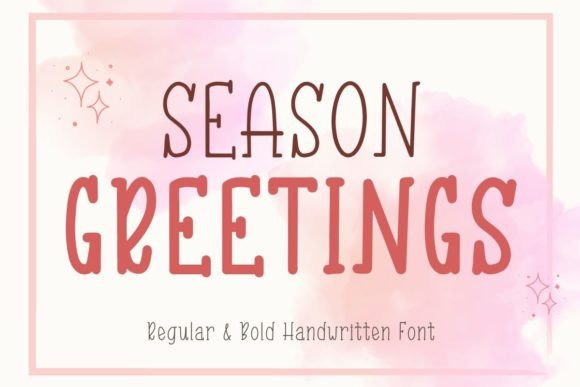
Step into a world of sophistication and elegance with Season Greetings Font, the charming serif font crafted by AnningArts. This exquisite creation is a testament to meticulous artistry, showcasing graceful curves and delightful details that will elevate your designs beyond the ordinary.
Unleash your creativity with this versatile font, perfect for crafting captivating business proposals that demand attention. Its clean lines and subtle flourishes add a touch of refinement to your documents, ensuring your ideas shine brighter than ever before.
With Season Greetings Font, you'll discover a myriad of opportunities to make a lasting impression. Picture your wedding invitations adorned with this elegant script, promising a day filled with love and joy. Let your social media posts bloom with creativity, capturing hearts with each captivating image.
Embrace the warmth and charm of Season Greetings Font, a font that speaks to the heart and captivates the senses. It's more than just a font; it's an experience that will transform your designs into works of art.